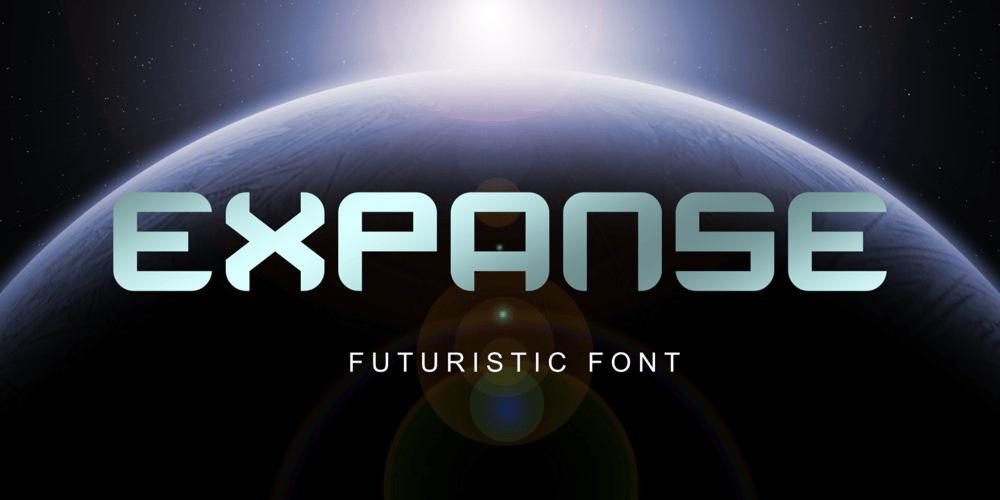
Expanse Font Family was designed by Rusdin Hendarsono and published by Alfareaniy. Expanse contains 1 styles and family package options. Expanse is a retro futuristic typeface. The font has a bold and big vibe and mixes sharp and round corners, kind of like the very old sci-fi movie titles. Expanse includes uppercase multilingual letters, numbers and punctuation.